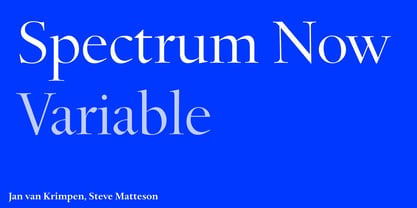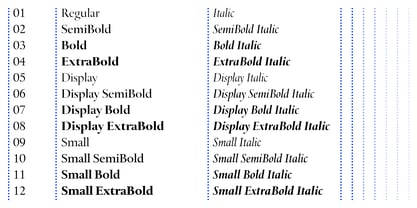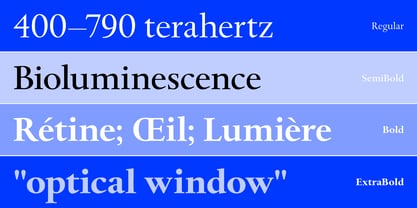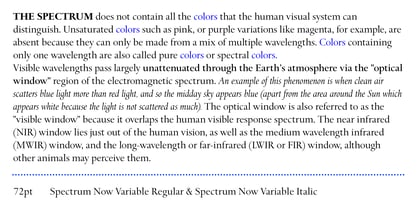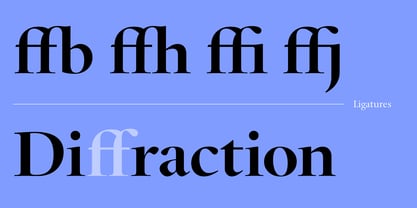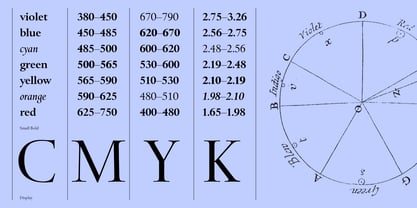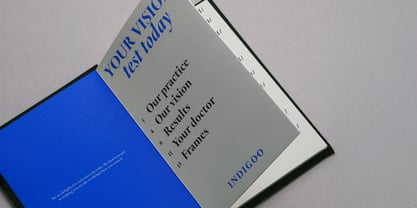
Spectrum Now Variable
The Spectrum Now Variable Font Family was designed by Steve Matteson, Jan van Krimpen and published by Monotype. Spectrum Now Variable contains 2 styles and family package options. More about this family
Spectrum font is based on a design by Jan van Krimpen, who worked on his font from 1941 to 1943 for use in a Bible of the Spectrum publishing house in Utrecht. The bible project was later cancelled but the font was so beautifully formed and universal that the Monotype Corporation in London completed it. Distinctive are the reserved elegance and unmistakeable beauty of form.
The italic was kept fine and is a wonderful complement to the other weights, making it perfect for emphasis in text. The form of the lower case italic g is reminiscent of van Krimpen's italic for Lutetia and Romanee. A similar font in form is the Perpetua from Eric Gill. It displays not only similar forms to those of Spectrum, both fonts also have uniquely designed old style figures. The 7 is particularly unusual with its slanted horizontal stroke and marked bend to the left in the lower third of the form.
Spectrum is an extremely legible font even in smaller point sizes and is just as suitable for headlines as for long texts.